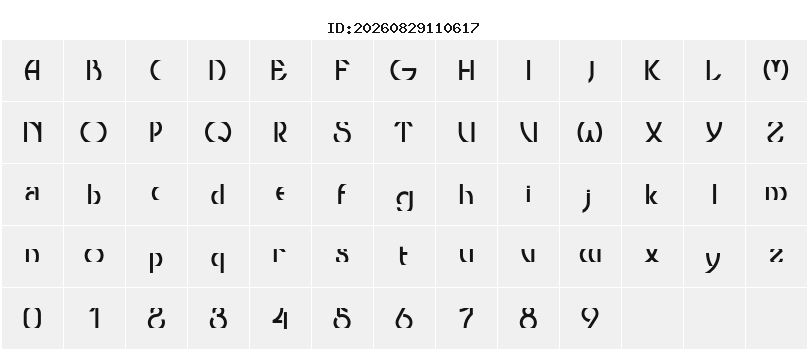
ThresholdCP Preview
• Font Name: ThresholdCP
• Font ID: ThresholdCP
• Full Font Name: ThresholdCP
• PostScript Name: ThresholdCP
• Character Count: 163
• Manufacturer: Claude P.
About ThresholdCP.otf
ThresholdCP.otf is a modern, elegant sans-serif font designed for ultimate readability and visual harmony. Perfect for branding, headlines, web design, and print materials.